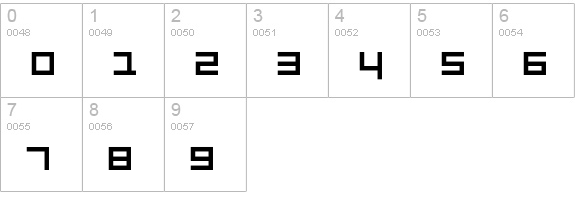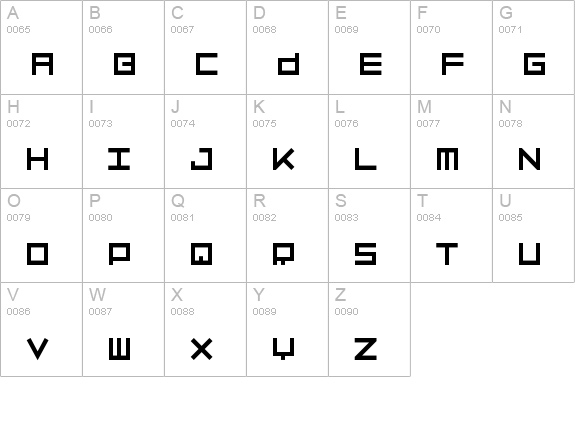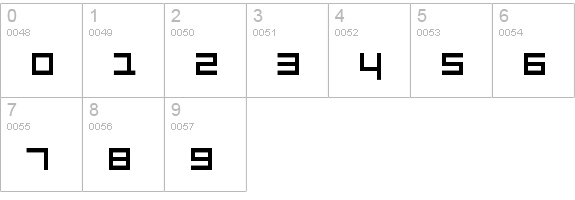
LuggageRegular Font Details
Luggage Regular font is a versatile and stylish typeface designed to make any text stand out with its clean lines and modern aesthetic. This font exudes a sense of professionalism and sophistication, making it perfect for a wide range of design projects. Whether you're creating a sleek business presentation or a trendy marketing campaign, Luggage Regular font is sure to elevate your work to the next level. What makes Luggage Regular font even more appealing is that it is freely available for download at FontsMarket.com. This means you can easily access this high-quality font without any cost, making it a fantastic option for designers on a budget or anyone looking to enhance their projects with a premium typeface. Don't miss out on the opportunity to add Luggage Regular font to your font library today and take your designs to new heights.